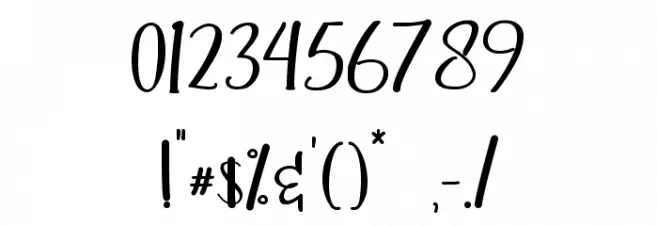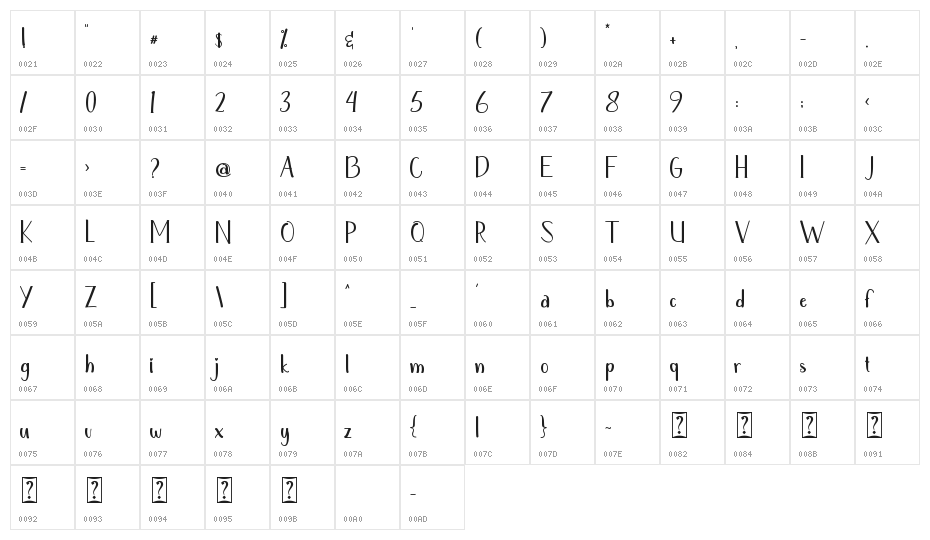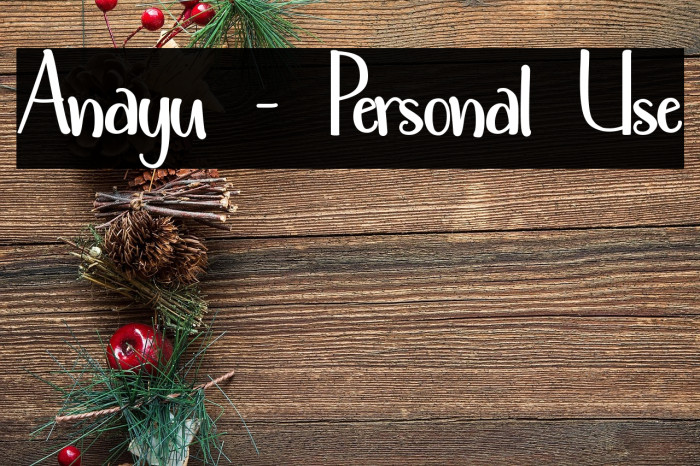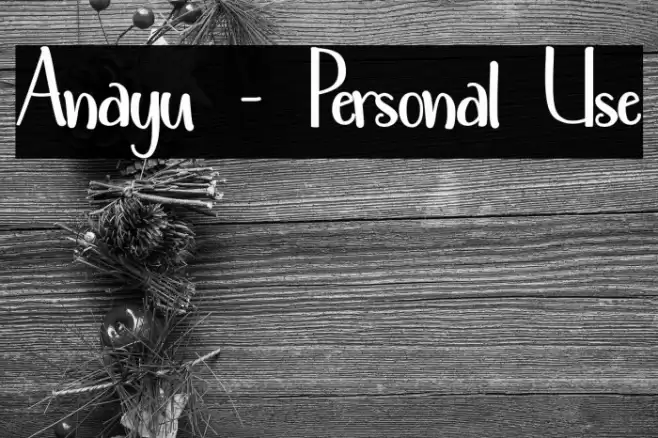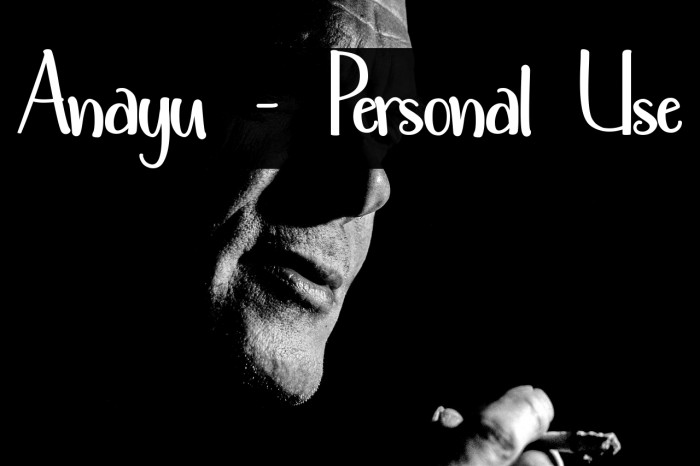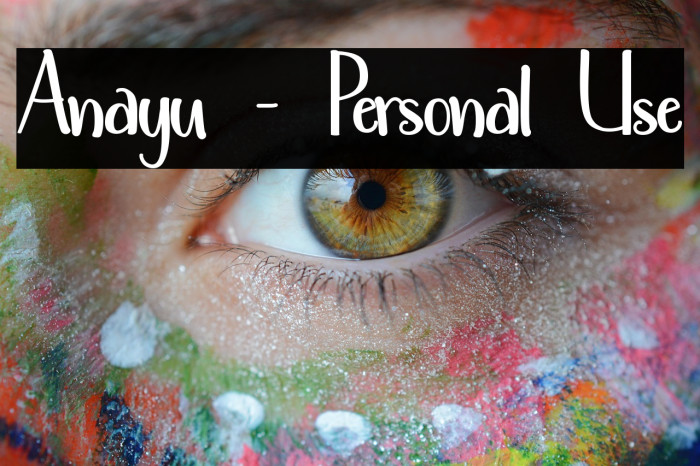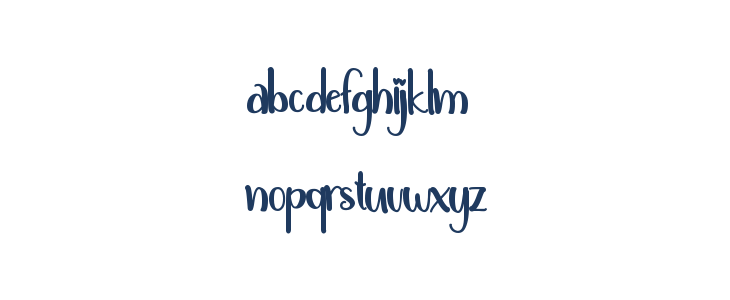
Anayu - Personal Use Font
Anayu - Personal Use Description
This font features a playful and whimsical style, characterized by its tall, narrow letters with a slight slant. The uppercase letters are bold and striking, while the lowercase letters maintain a more casual and flowing appearance. The numerals are consistent with the overall style, offering a cohesive look. Special characters are creatively designed, adding to the font's unique personality. The font's overall appearance is both modern and artistic, making it suitable for a variety of creative projects.
Overall StyleModern, Artistic
Use CaseHeadlines, Logos, Creative projects
Proposed ProjectsIdeal for greeting cards, children's books, playful branding, and creative posters.